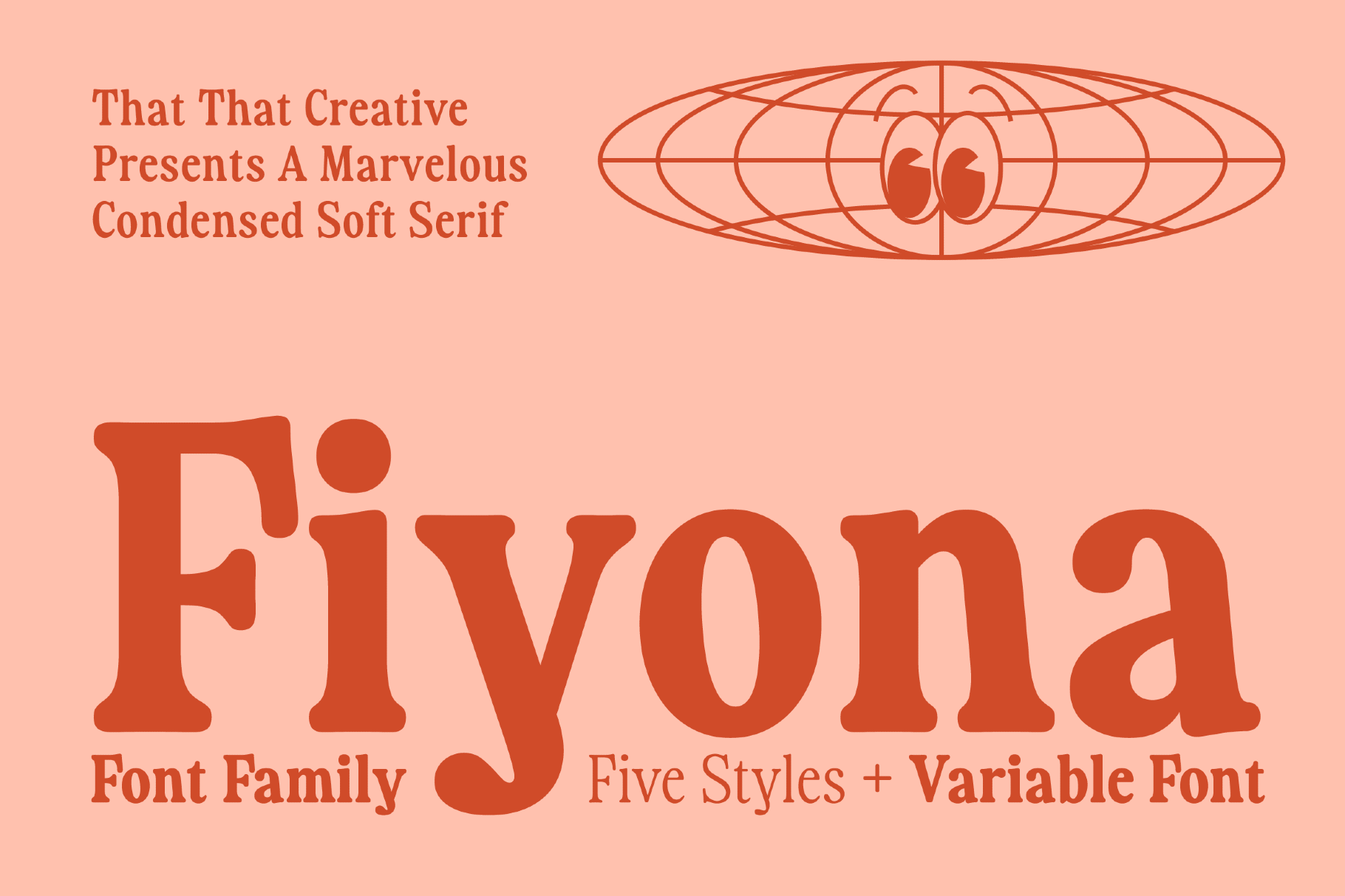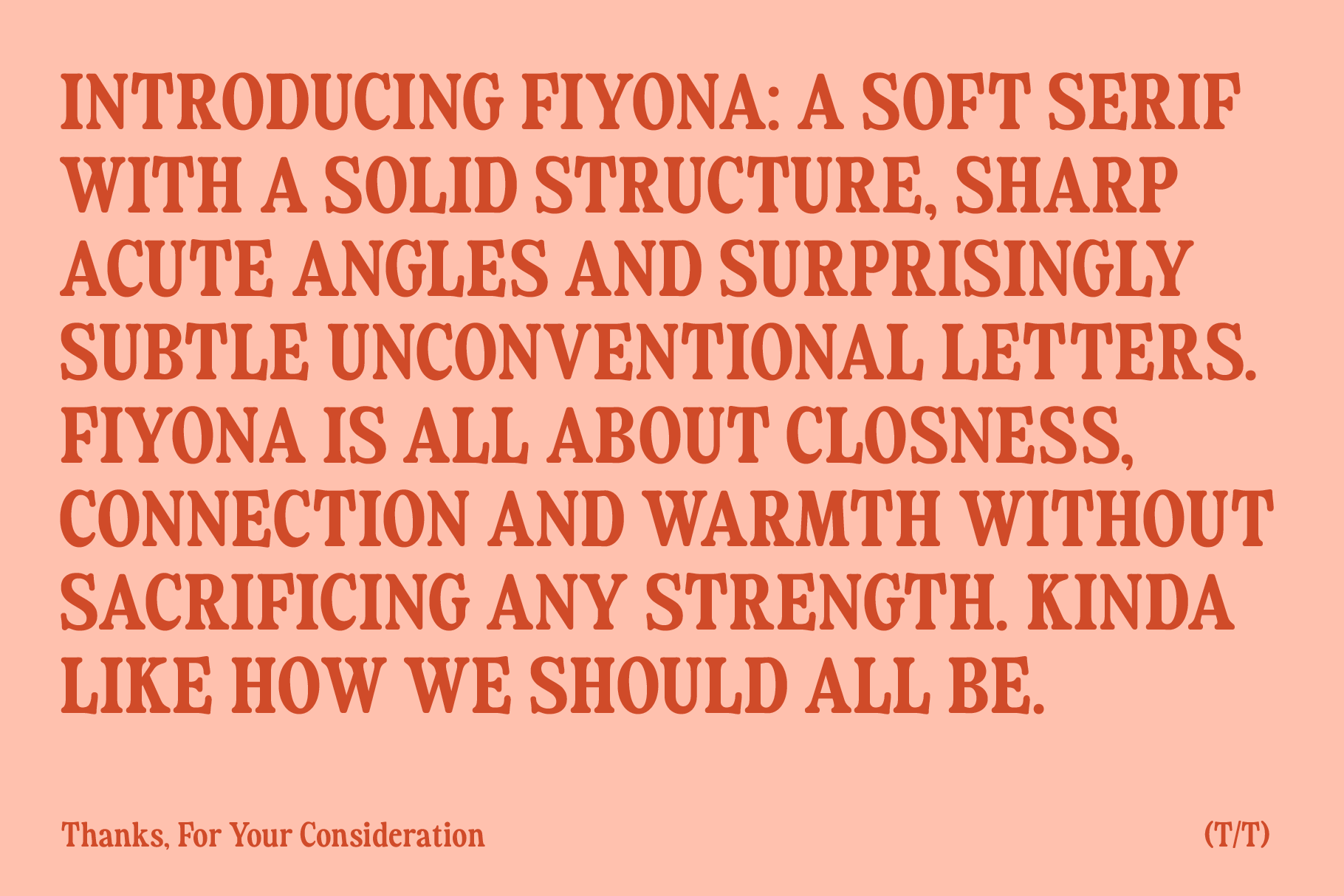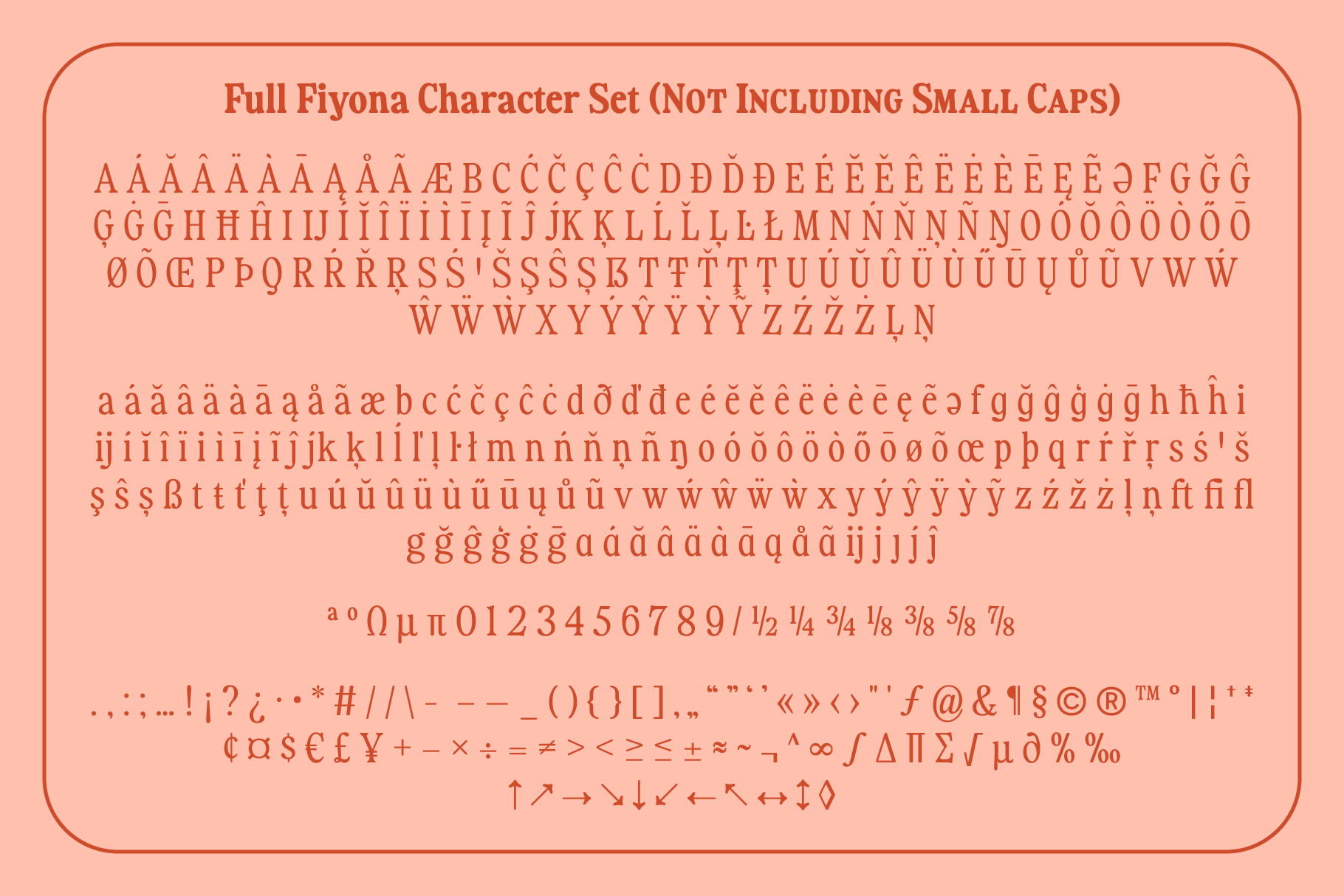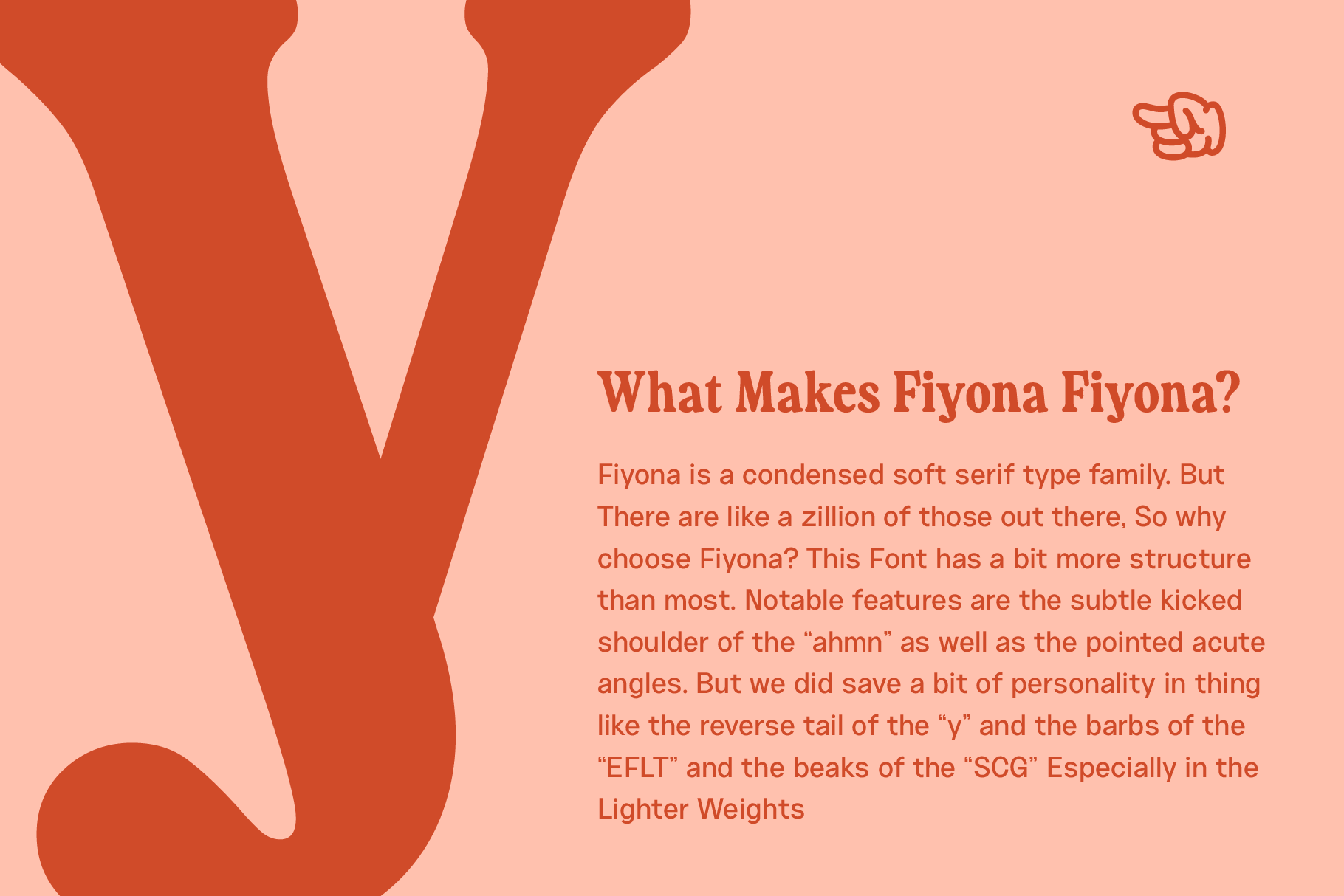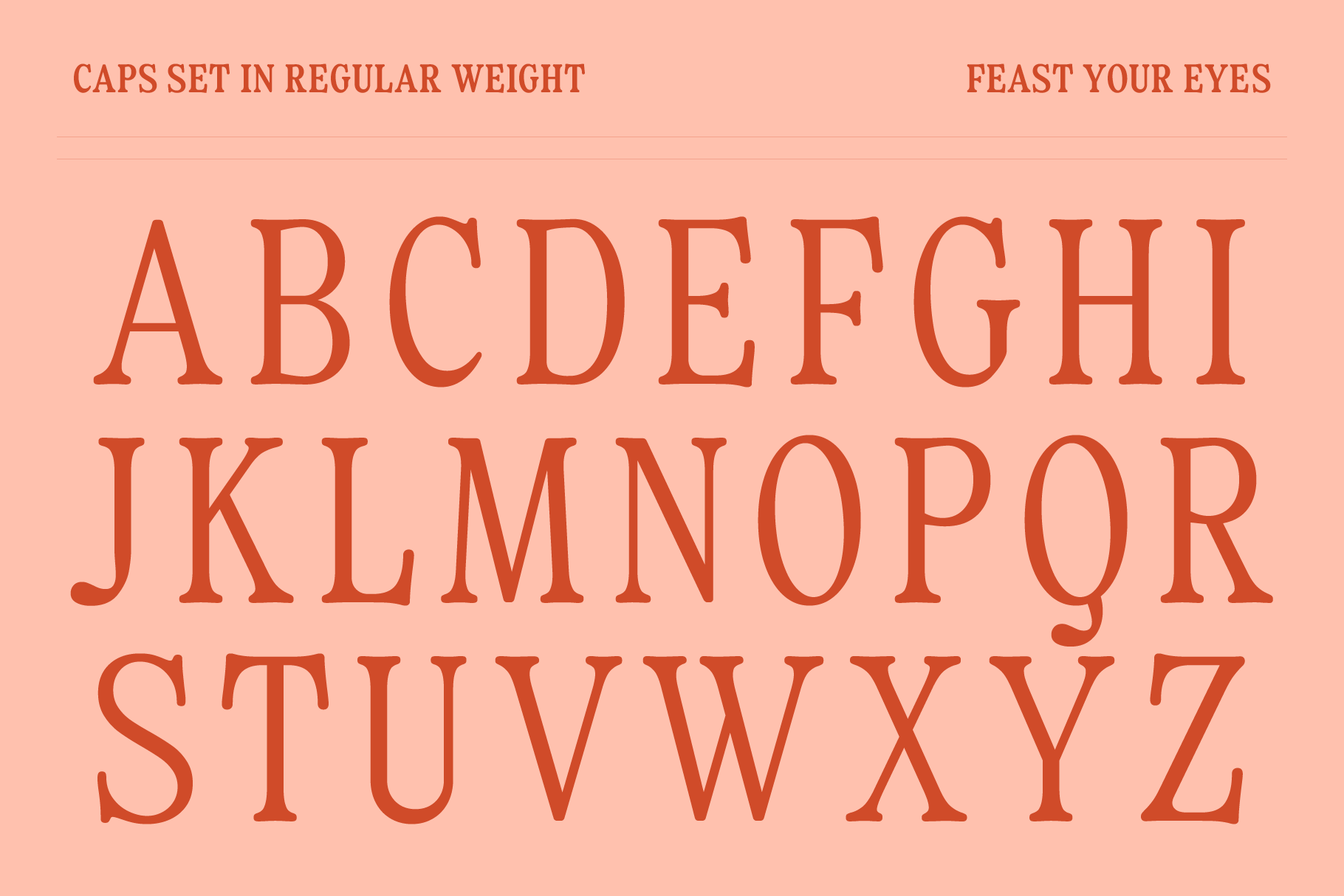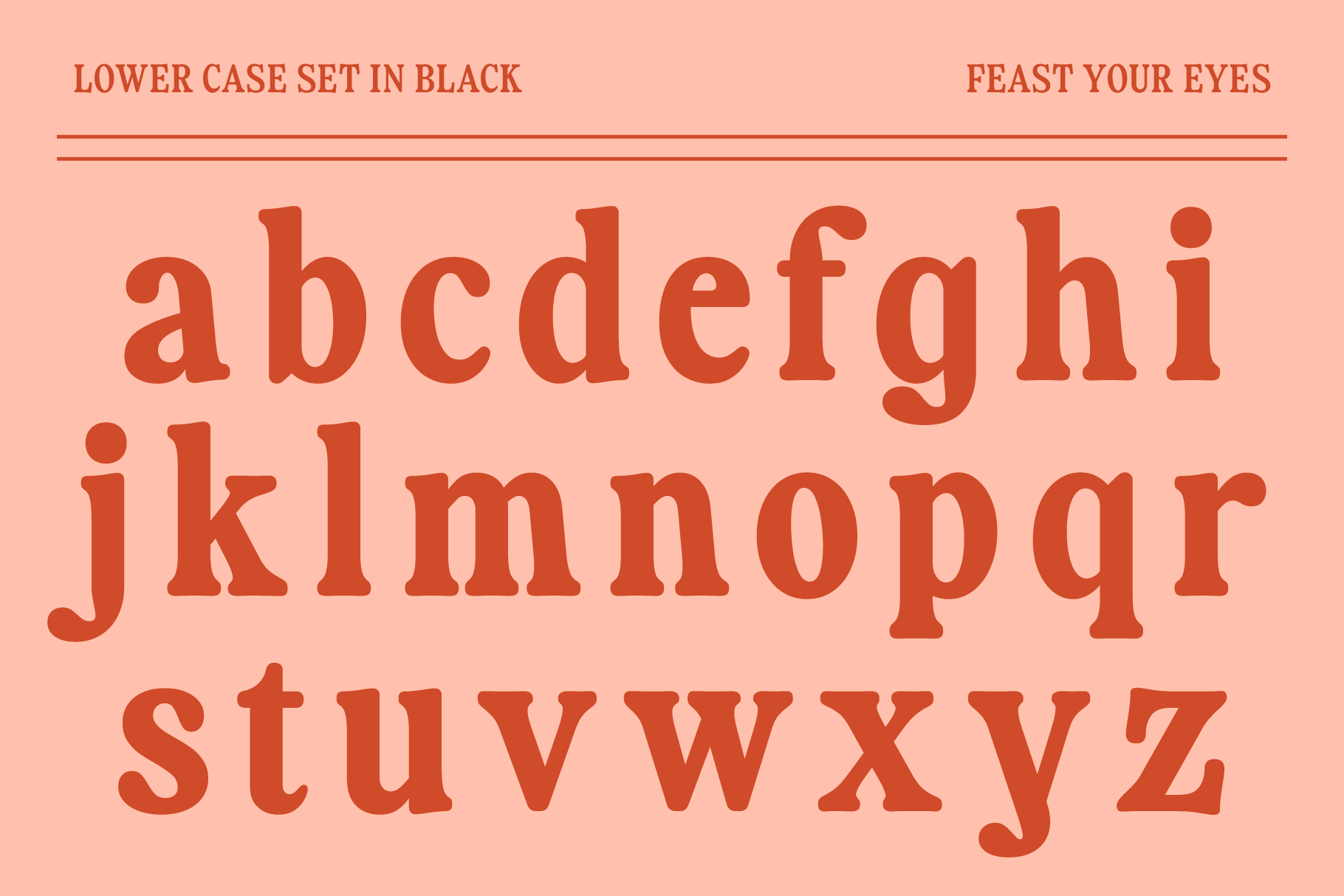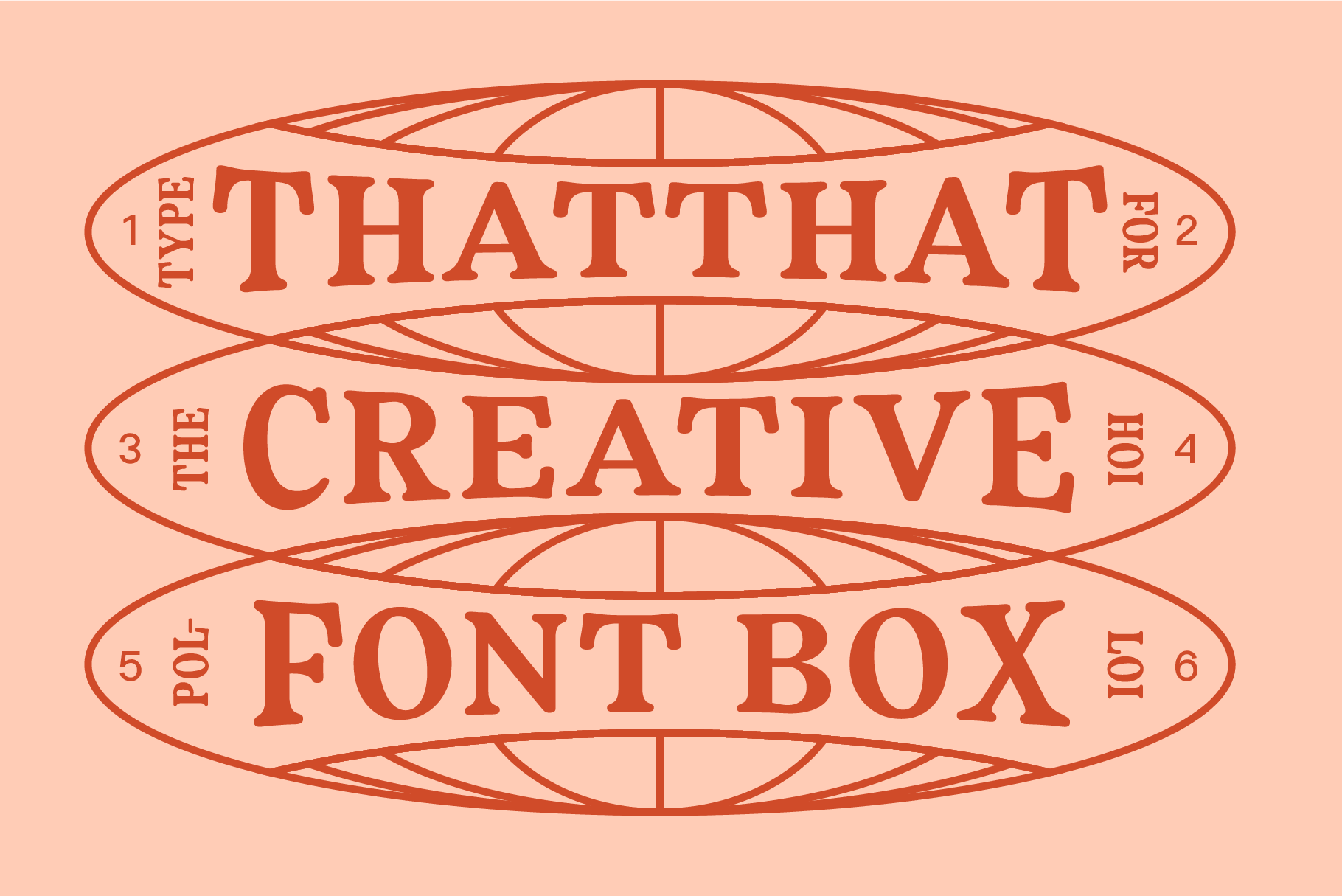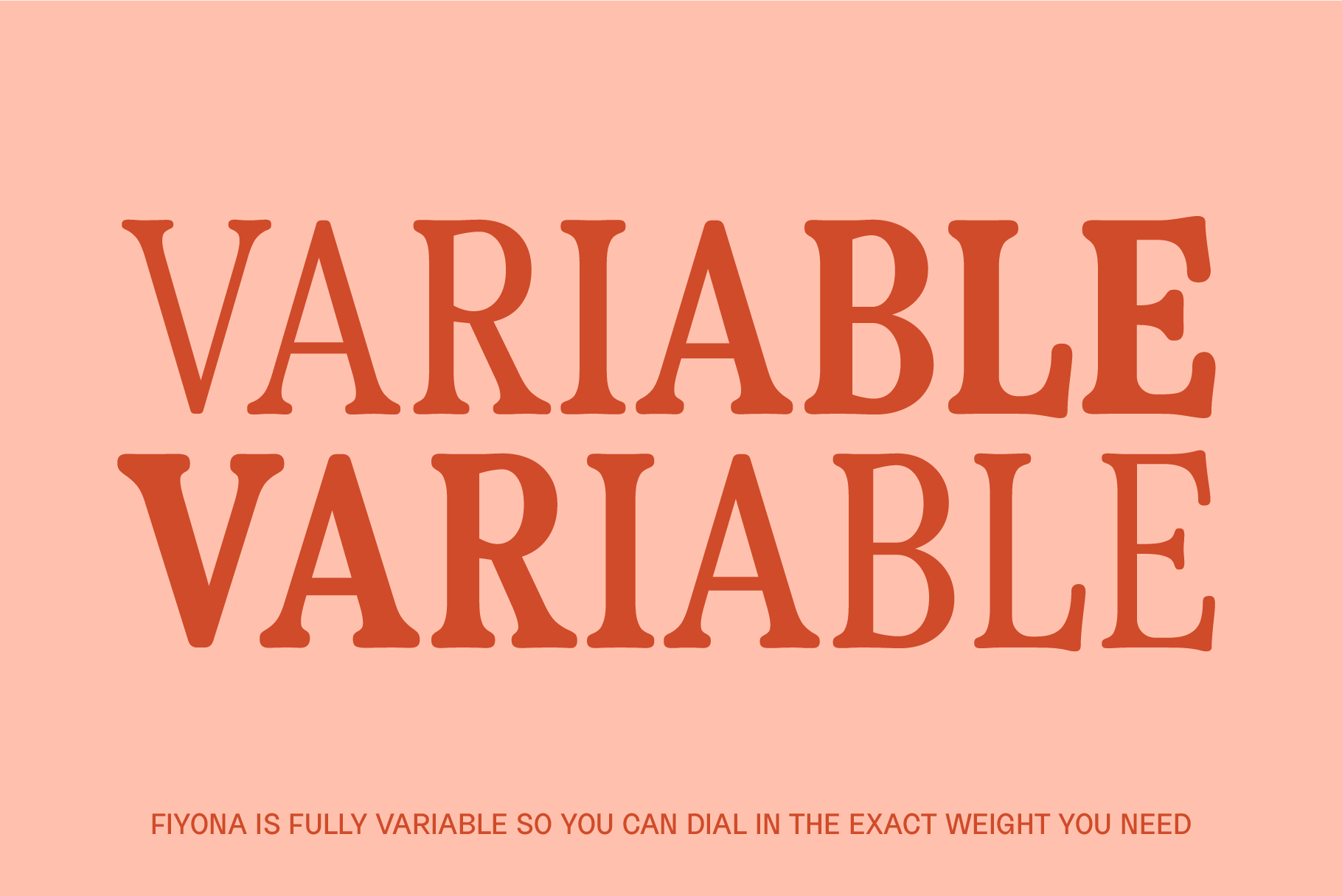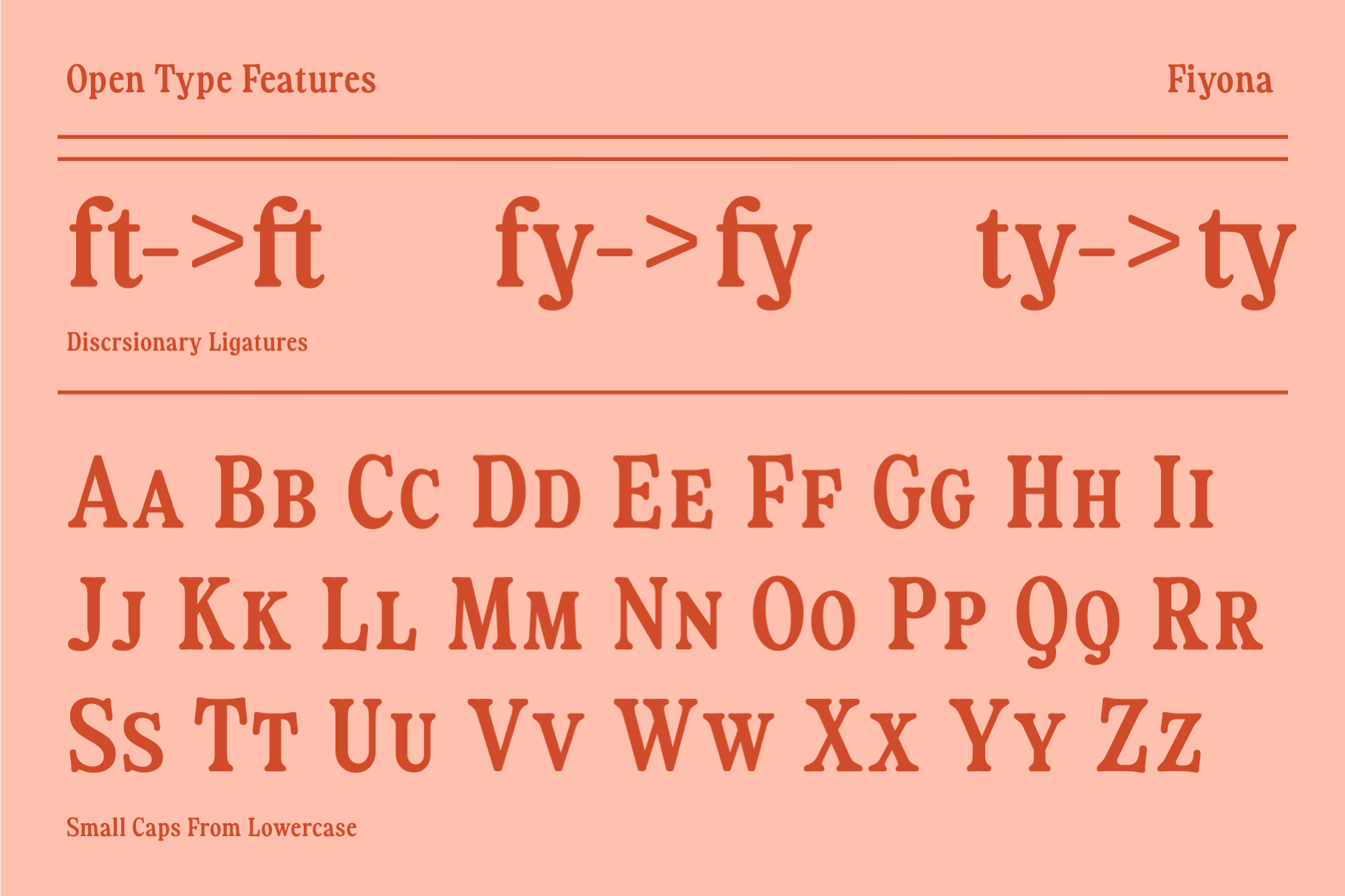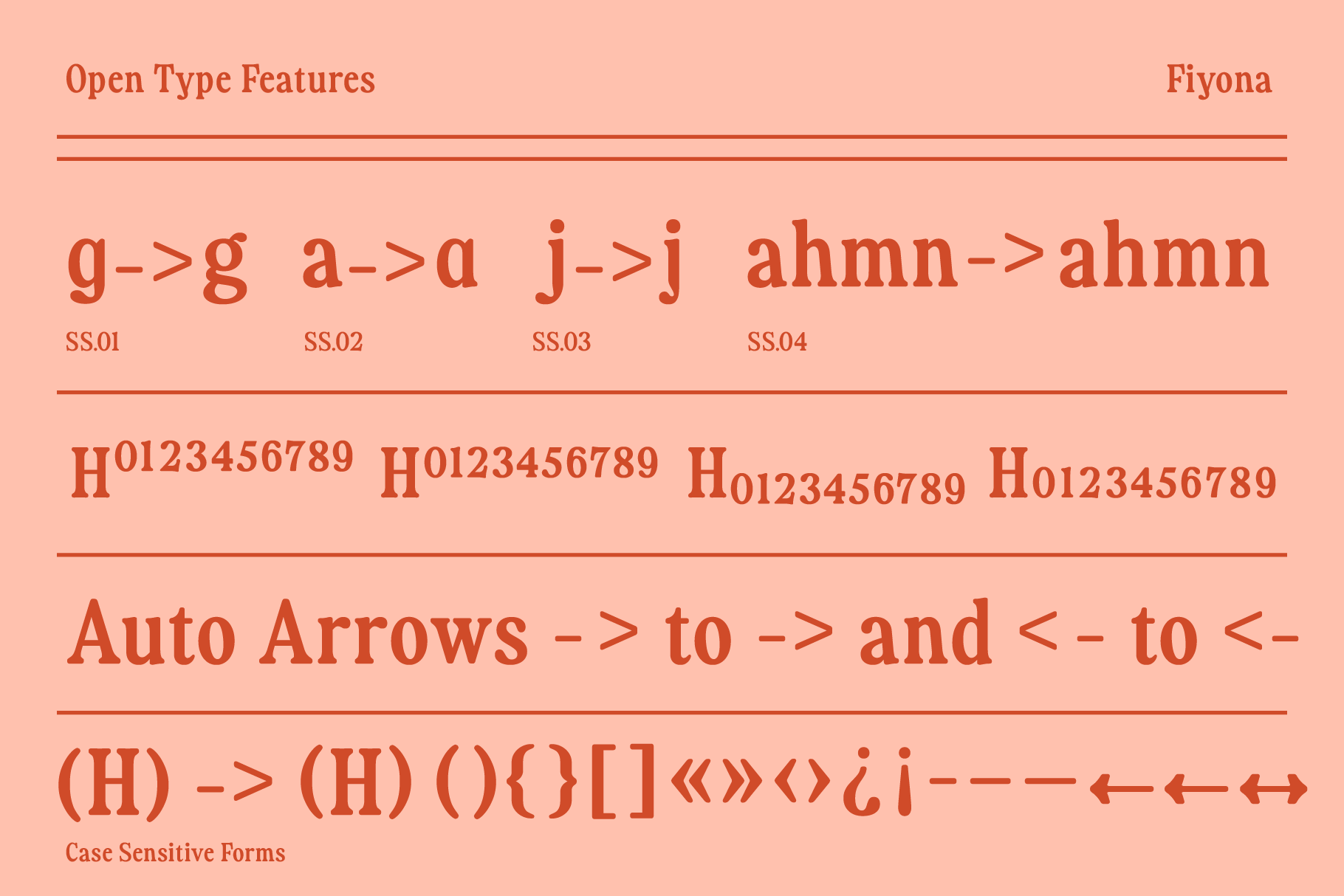
Fiyona - Retro Soft Serif Font Family
Fiyona is a retro soft serif built on the tension between round and sharp. The lowercase ahmn pick up a shoulder stem kicked out at an angle, the capital E, F, L, and T get small barbs, the capital C, G, and S pick up subtle beaks, and the lowercase y ends in a reversed descender that curls back on itself instead of dropping straight down. Thin weights read serious and buttoned-up; the heaviest weights swell into a bouncier, almost bubble-serif register, so the same skeleton shifts personality across the range. A variable axis lets that weight land anywhere in between, while five static styles — Regular, SemiBold, Bold, ExtraBold, and Black — pin down fixed stops along the way.
Small caps, case-sensitive punctuation, scientific and fraction numerals, and four stylistic sets round out the OpenType feature set, so the quirks can be dialed up or dialed back per project. Use it for branding and logo work, poster and editorial headlines, packaging, web type, and social graphics.
- variable weight axis, plus 5 static styles: Regular, SemiBold, Bold, ExtraBold, and Black;
- uppercase, lowercase, numerals & punctuation;
- small caps, scientific/fraction numbers;
- 4 stylistic sets, case-sensitive punctuation, discretionary ligatures, auto arrows;